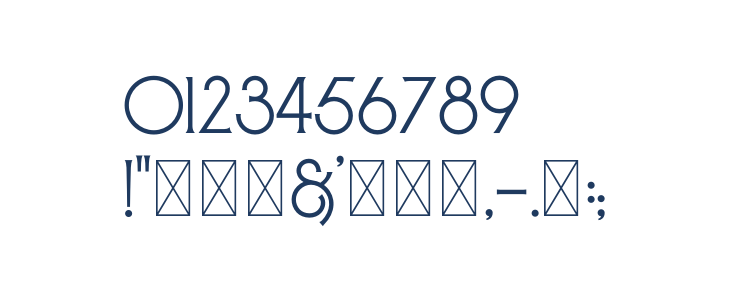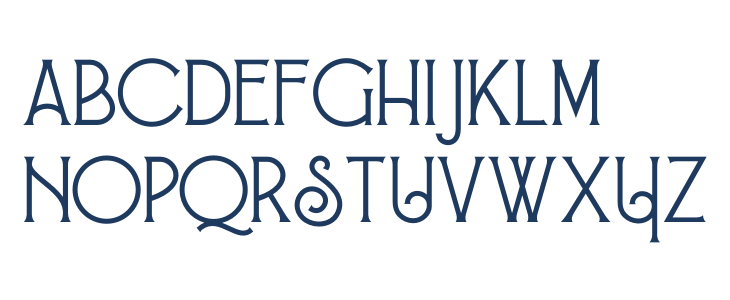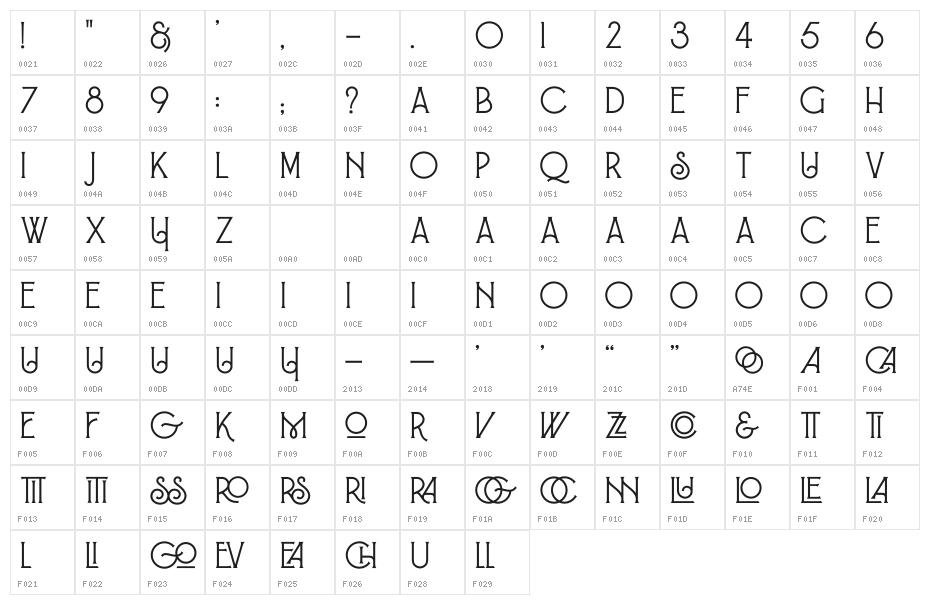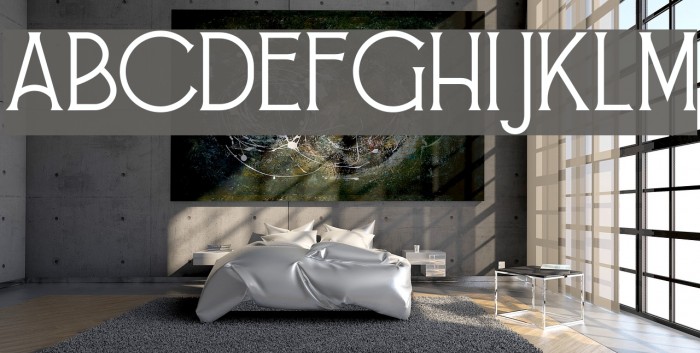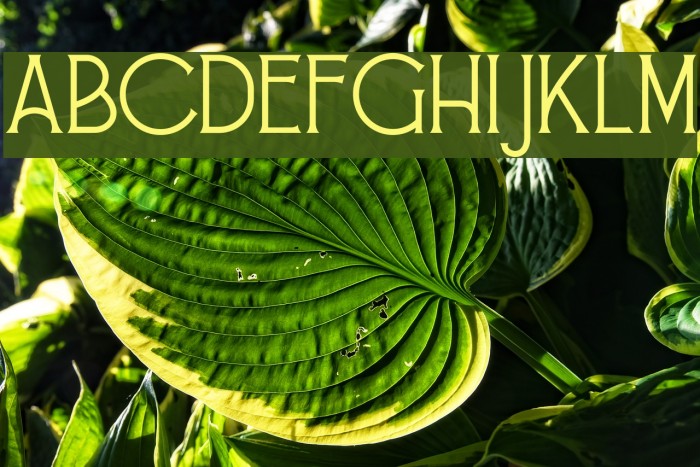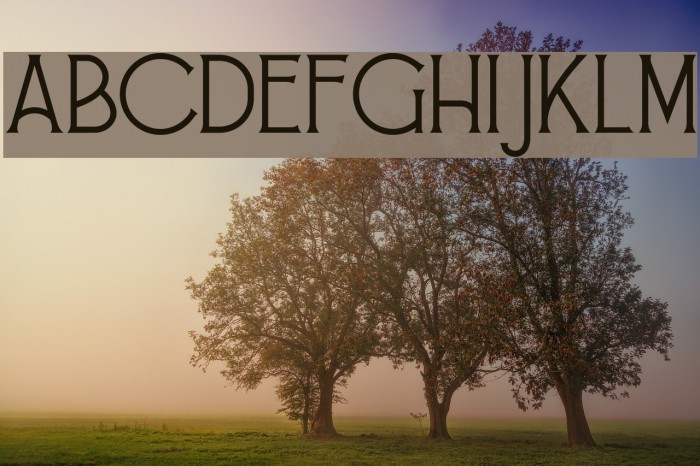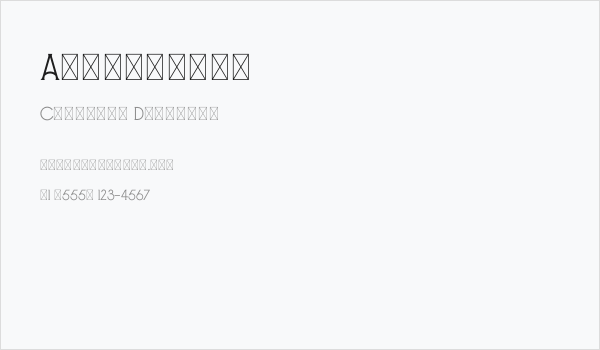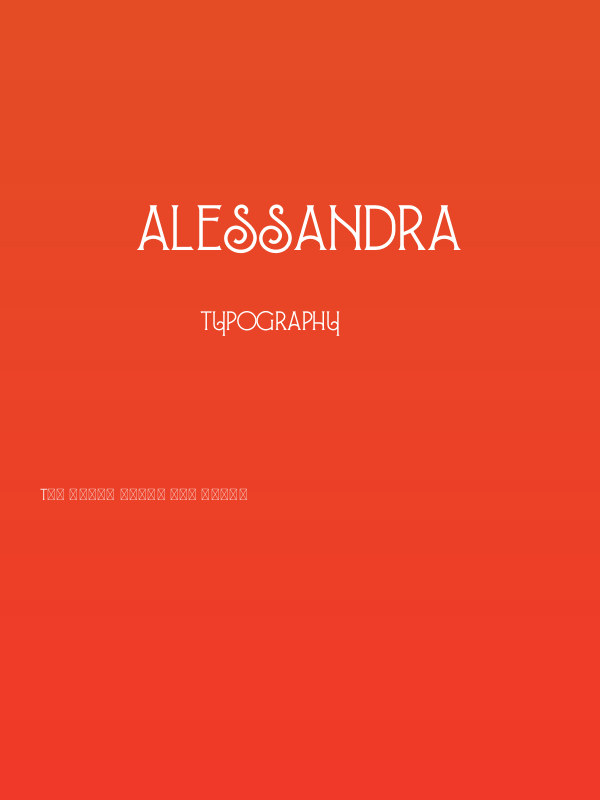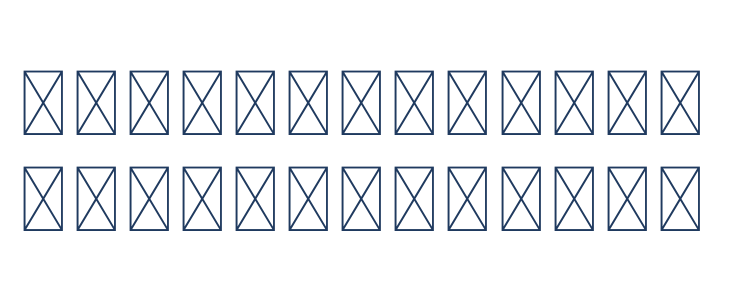
Alessandra Font
Alessandra Description
This font features a unique blend of elegance and modernity, characterized by its tall, slender letterforms and subtle serifs. The uppercase letters exhibit a refined style with a slight flair at the ends, giving them a sophisticated appearance. The lowercase letters maintain a consistent design, complementing the uppercase with their smooth curves and balanced proportions. The numerals are distinct and easy to read, with a classic touch that enhances their legibility. The special characters, such as the ampersand and punctuation marks, are crafted with attention to detail, adding to the font's overall aesthetic appeal. This typeface is versatile, suitable for a variety of design projects that require a touch of elegance and modernity.